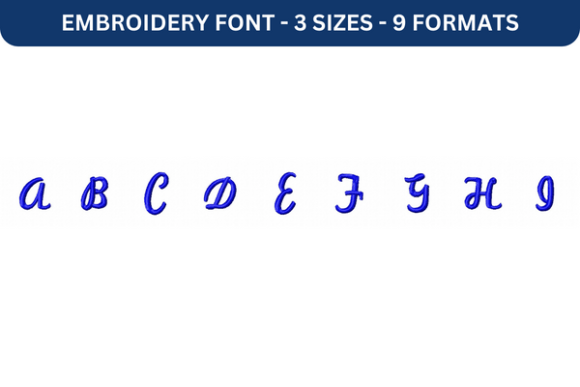
Marketing Script Font Upper a to I: A Versatile Tool for Personalized Embroidery
In an era where personalization has become a cornerstone of both consumer and business strategies, the ability to add unique, meaningful details to products is more valuable than ever. Whether it's a custom name on a piece of clothing, a special date on a gift, or a motivational quote on a fabric item, the right font can make all the difference. Enter Marketing Script Font Upper a to I, a high-quality embroidery font designed to meet the growing demand for personalized and visually appealing designs.
This font isn’t just about aesthetics—it’s about functionality. With its elegant script style, it offers a blend of sophistication and readability that works well across various applications. From crafting custom apparel to creating branded merchandise, this font is a versatile tool that fits seamlessly into modern creative workflows.
The Rise of Personalization in Design
Consumers today are no longer satisfied with generic products. They seek items that reflect their identity, values, and personality. This shift has led to a surge in demand for personalized goods, from custom t-shirts to embroidered accessories. The ability to create unique designs quickly and efficiently has become a key differentiator for businesses looking to stand out in competitive markets.
Marketing Script Font Upper a to I addresses this need by providing a professional-grade embroidery font that can be used across multiple platforms and machines. Its clean lines and flowing script make it ideal for adding names, dates, quotes, and other text elements to fabric with precision and flair.
Why This Font Stands Out
What sets Marketing Script Font Upper a to I apart is its adaptability and quality. Unlike many other embroidery fonts, it comes with a variety of file formats, ensuring compatibility with a wide range of embroidery machines. This flexibility is particularly important for creators who work with different equipment or collaborate with others who may use varying systems.
Additionally, the font is designed to maintain its clarity and beauty even when scaled down or up. This makes it suitable for small details like monogramming or large statements on banners and promotional items. Whether you're working on a personal project or a commercial design, the font's versatility ensures it meets your needs without compromise.
Practical Applications Across Industries
From entrepreneurs launching custom product lines to educators creating branded materials, the applications of Marketing Script Font Upper a to I are vast. Here are a few real-world examples:
- Small Business Owners: Use the font to create custom labels, tags, and packaging for handmade goods or boutique products.
- Marketers and Branding Professionals: Incorporate the font into promotional items, such as embroidered logos or event signage, to reinforce brand identity.
- Freelancers and Creatives: Utilize the font for client projects that require a touch of elegance and personalization, such as wedding invitations or custom gifts.
- Hobbyists and DIY Enthusiasts: Add a personal flair to home decor, fashion items, or craft projects with ease.
These practical uses highlight how the font supports diverse creative and business needs, making it a valuable asset for anyone looking to enhance their design offerings.
How It Fits Into Modern Workflows
As technology continues to evolve, so do the tools and techniques used in design and production. The integration of digital embroidery software with physical machines has streamlined the process of creating custom designs. Marketing Script Font Upper a to I is designed with these modern workflows in mind, offering seamless compatibility with popular embroidery software and hardware.
Its support for multiple file formats—such as .dst, .pes, .exp, and .jef—ensures that users can easily transfer and use the font across different platforms. This level of compatibility is essential for professionals who work with teams or clients using varied systems, reducing the risk of technical barriers and increasing efficiency.
Enhancing User Experience Through Customization
Personalization isn’t just about aesthetics; it also plays a significant role in user experience. When consumers see their name or a meaningful message on a product, it creates a stronger emotional connection. This connection can lead to increased loyalty and repeat purchases, which is especially valuable for small businesses and independent creators.
By using Marketing Script Font Upper a to I, designers and creators can offer their customers a more tailored experience. Whether it's a custom embroidered name on a jacket or a motivational quote on a tote bag, the font helps turn ordinary items into meaningful keepsakes.
Conclusion: A Reliable Choice for Designers and Creators
As the demand for personalized and high-quality designs continues to grow, having the right tools is essential. Marketing Script Font Upper a to I provides a reliable solution that combines style, functionality, and compatibility. Whether you're a seasoned designer or a hobbyist exploring new creative avenues, this font offers the flexibility and quality needed to bring your ideas to life.
With its support for multiple file formats and compatibility with various embroidery machines, Marketing Script Font Upper a to I is more than just a font—it’s a powerful tool that empowers creators to deliver exceptional, customized designs. In a world where personalization is key, this font stands out as a valuable addition to any designer’s toolkit.